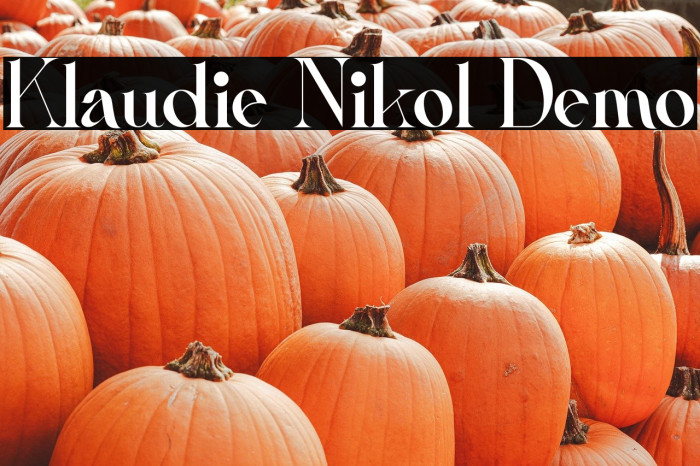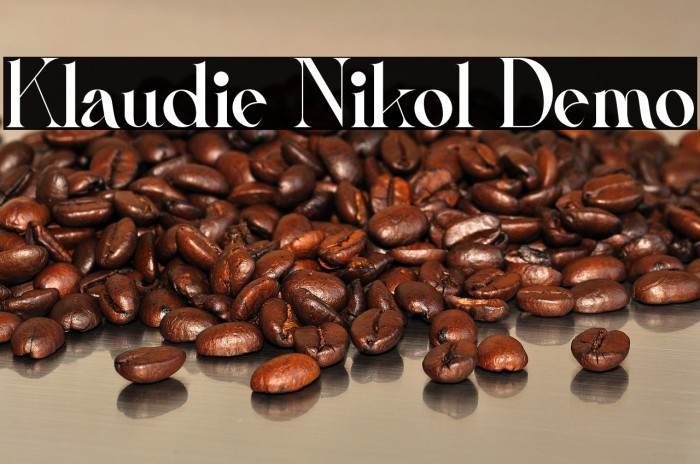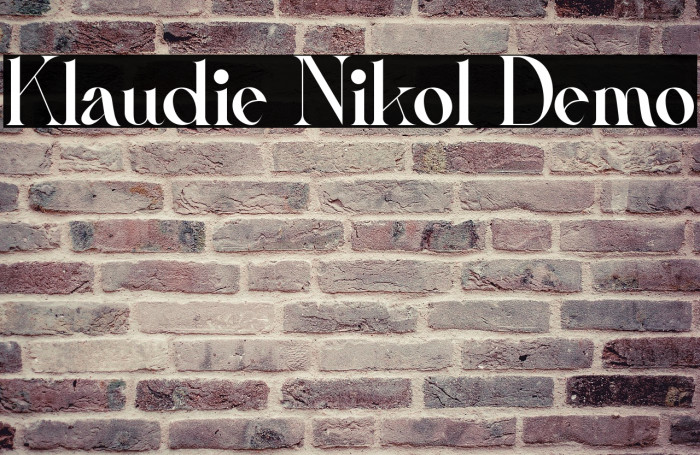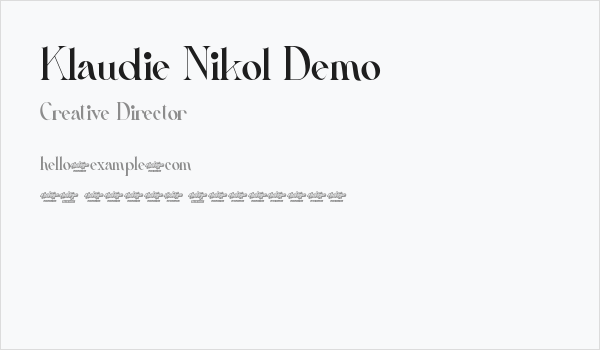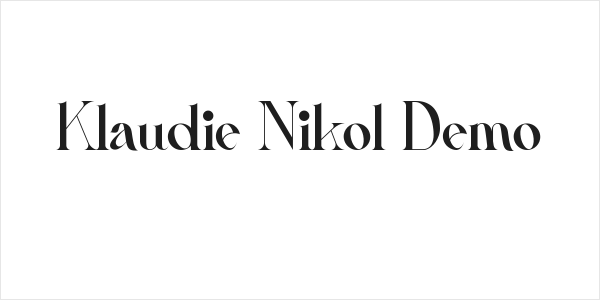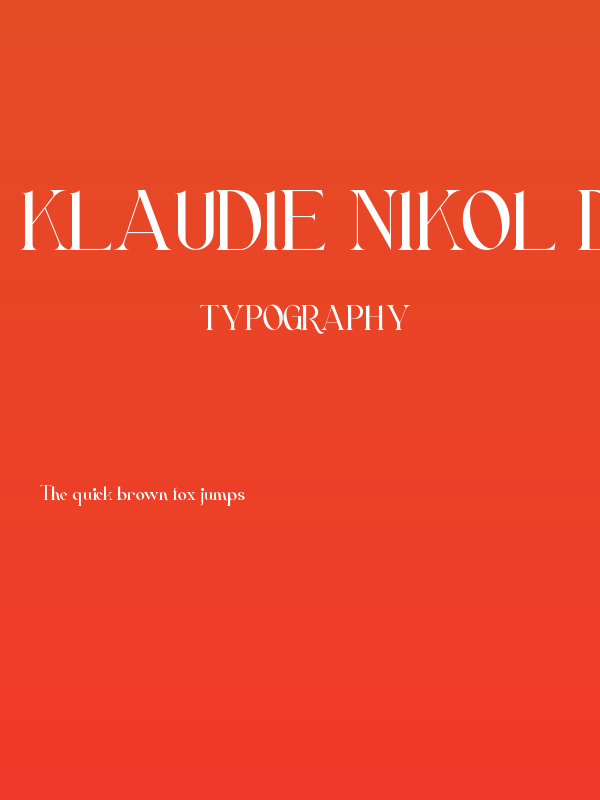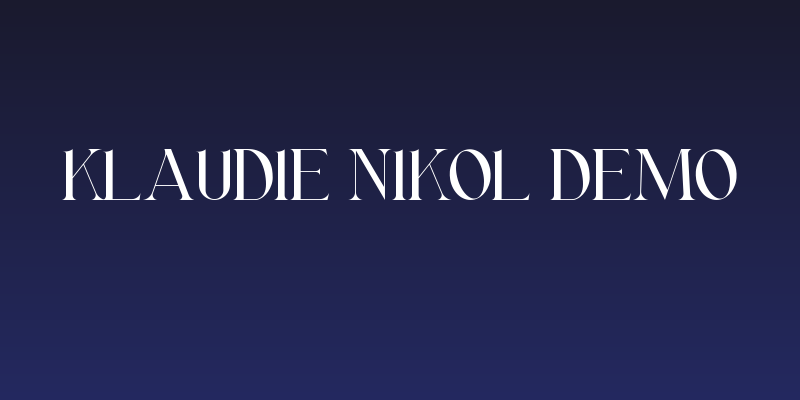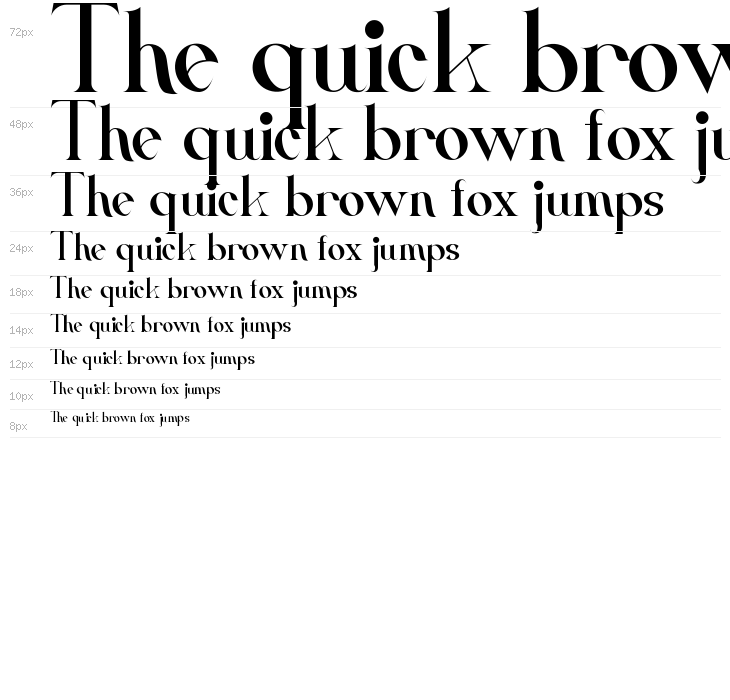
Klaudie Nikol Demo Font
Klaudie Nikol Demo Description
This font exhibits a unique blend of modern and classic styles, characterized by its high contrast between thick and thin strokes. The uppercase letters are elegantly elongated, giving a sense of sophistication and grace. The lowercase letters maintain a consistent style, with some featuring distinctive curves and flourishes that add a touch of creativity. The numerals are bold and clear, ensuring readability. Special characters are designed with the same attention to detail, making them stand out. Overall, this font is versatile, suitable for both formal and creative projects.
| Overall Style | Modern, Classic |
| Use Case | Headlines, Logos, Editorial Design |
| Proposed Projects | Ideal for branding, editorial design, luxury product packaging, and artistic posters. |